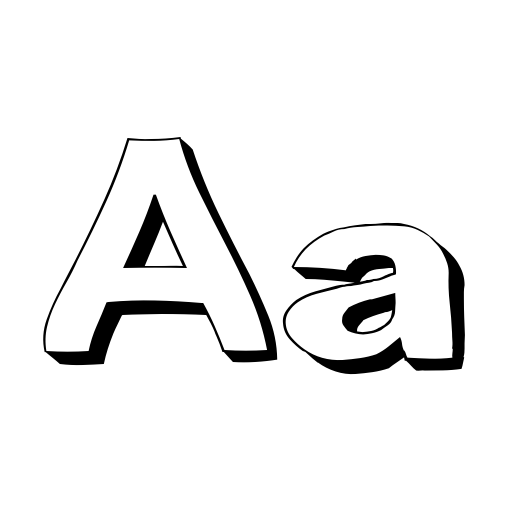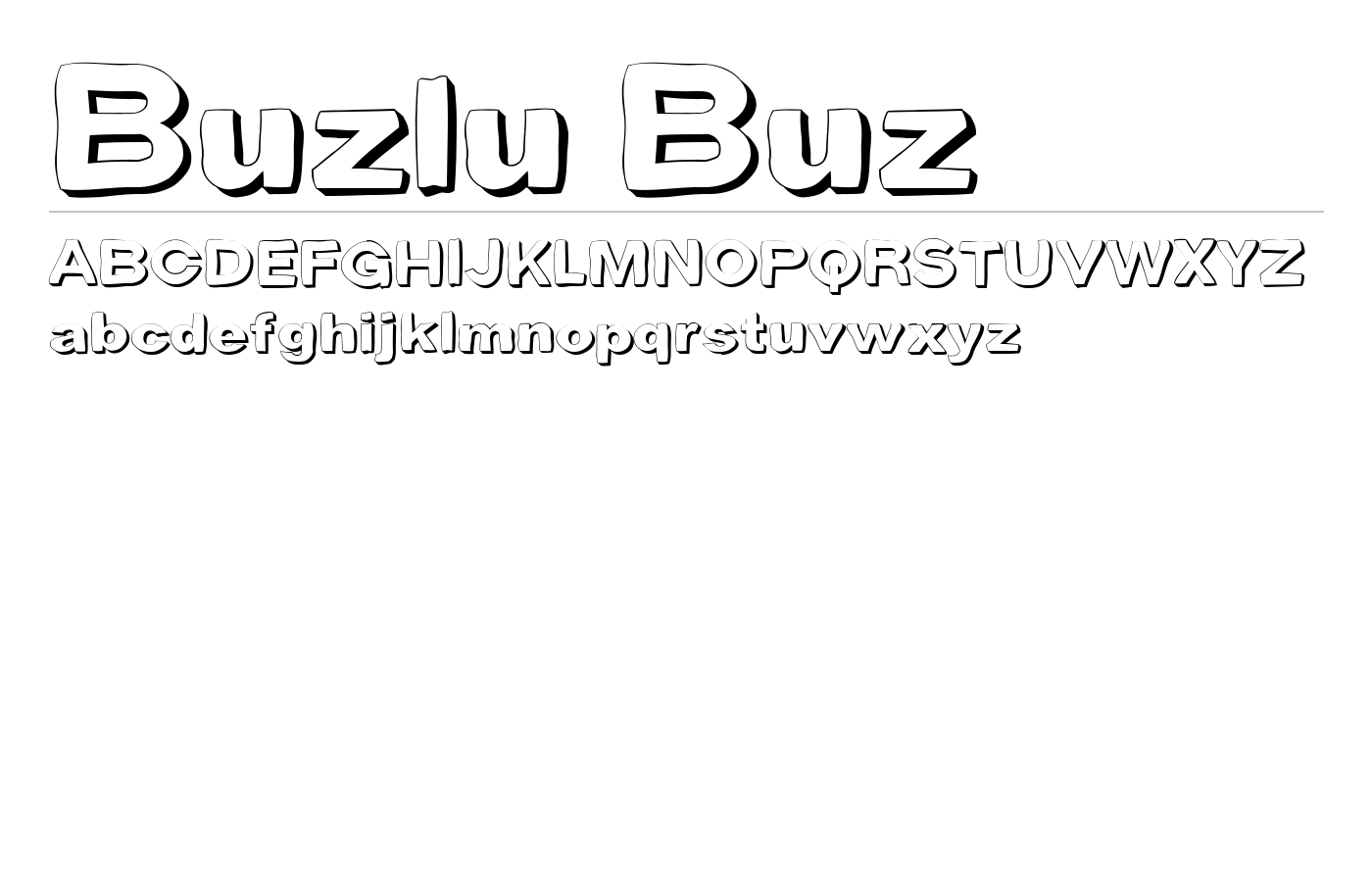
Buzlu Buz is a playful and bold sans serif font characterized by its chunky, irregular letterforms with a hand-drawn, slightly 3D shadow effect that adds depth and personality. Its rounded shapes and uneven strokes give it a casual, fun vibe, making it ideal for eye-catching headlines, children’s content, and creative branding projects that aim to convey energy and uniqueness. This font works best where a lively, informal tone is desired, helping designs stand out with a friendly and approachable style.
Buzlu Buz Font
About Buzlu Buz Font